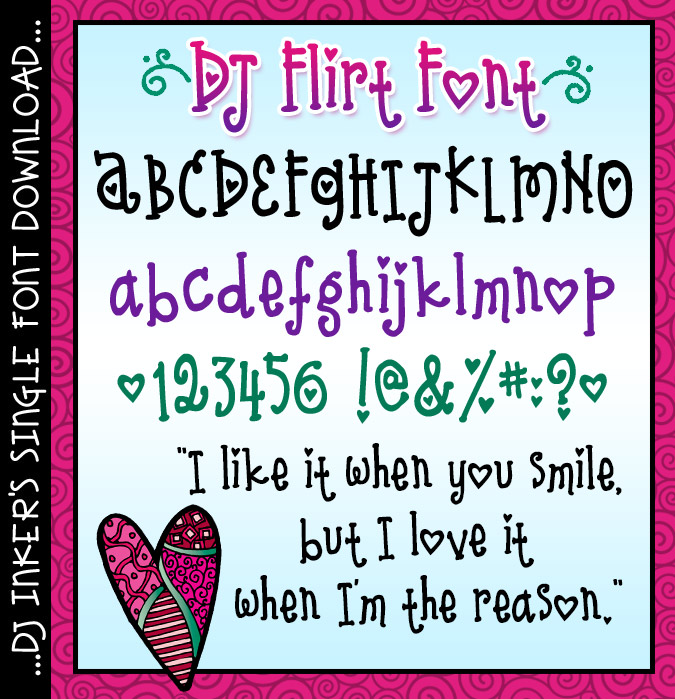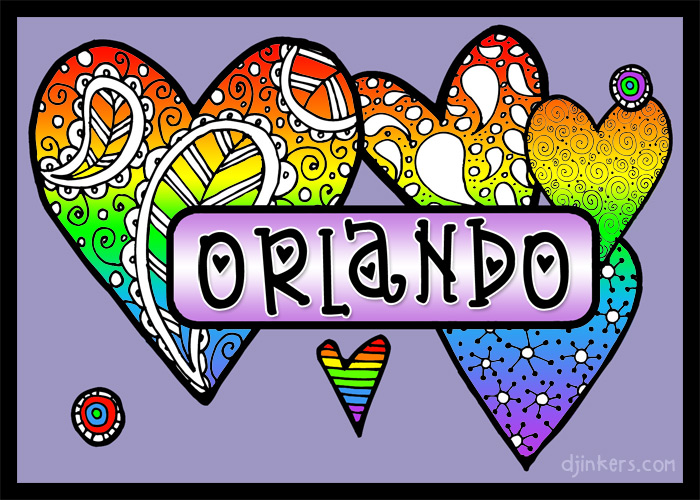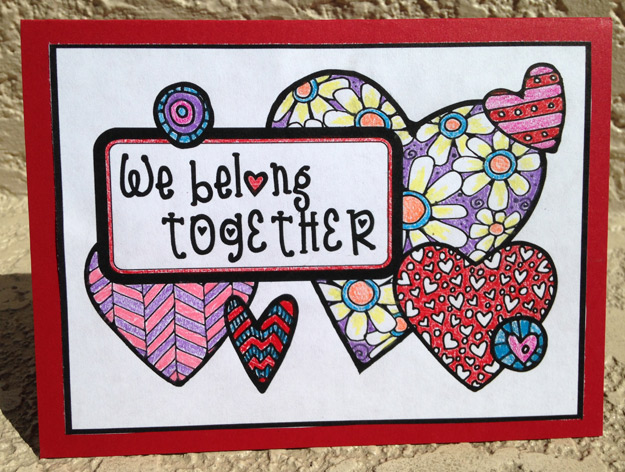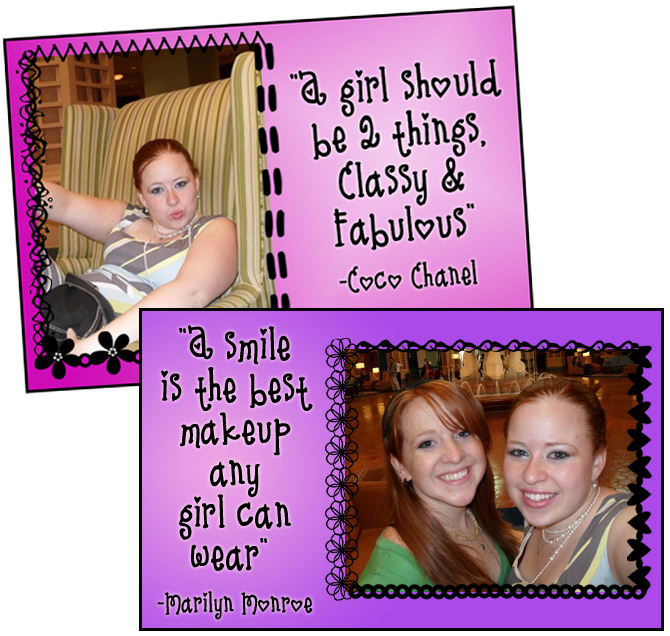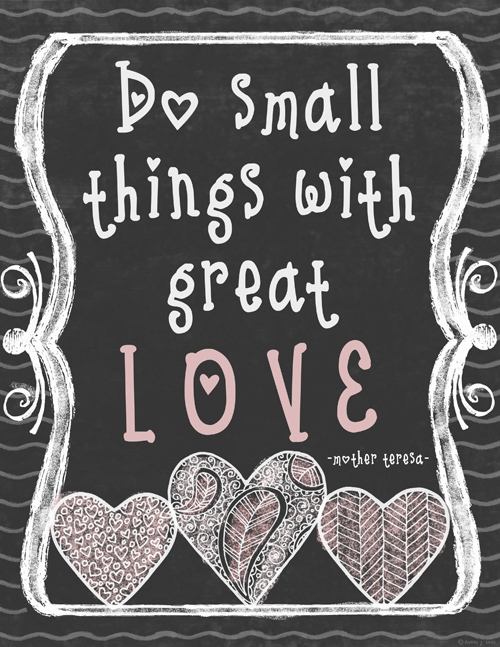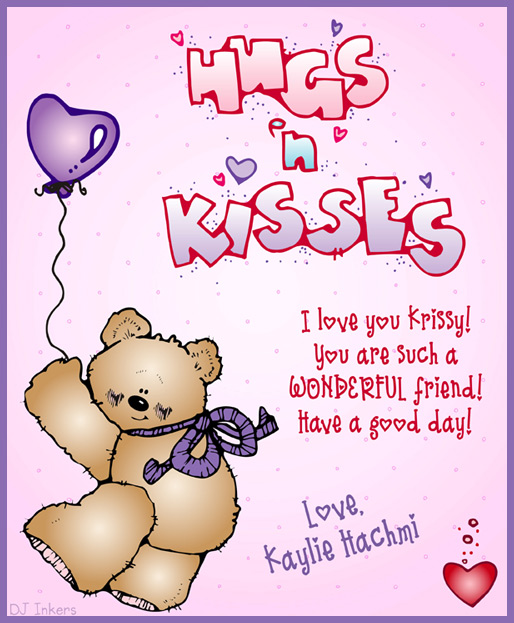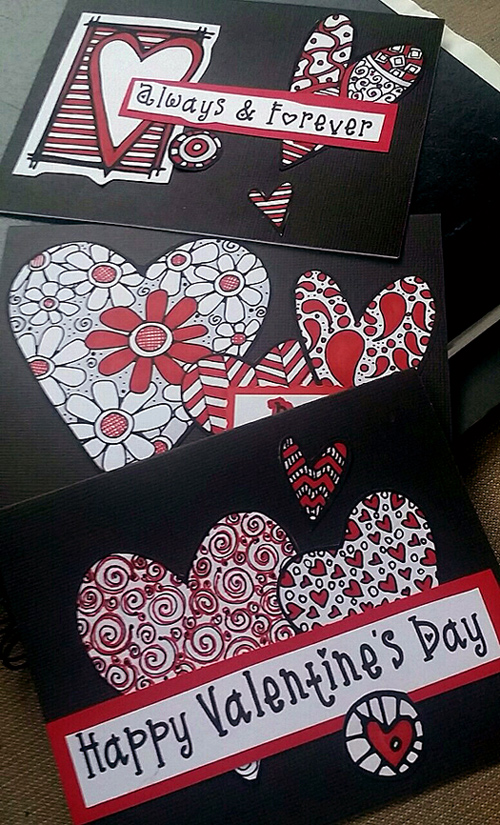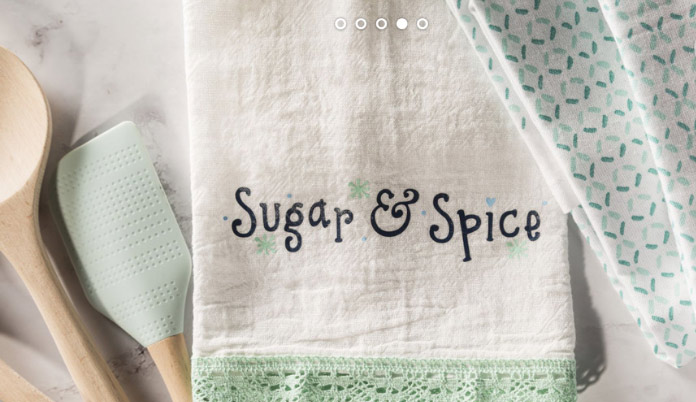
A cute, flirty heart font to make your creations smile by DJ Inkers
DJ Flirt Font - Heart Lettering Download
Don't you just love this adorable font? DJ Flirt adds a little heart, a wink and a smile to any creation! Perfect for love notes, Valentines, date night invites, anniversaries, greeting cards and more. This lovable lettering looks great in any color & size too. Type-up a smile today!
Version 2 of this font has fewer hearts and is included with our Favorite Fonts Collection.